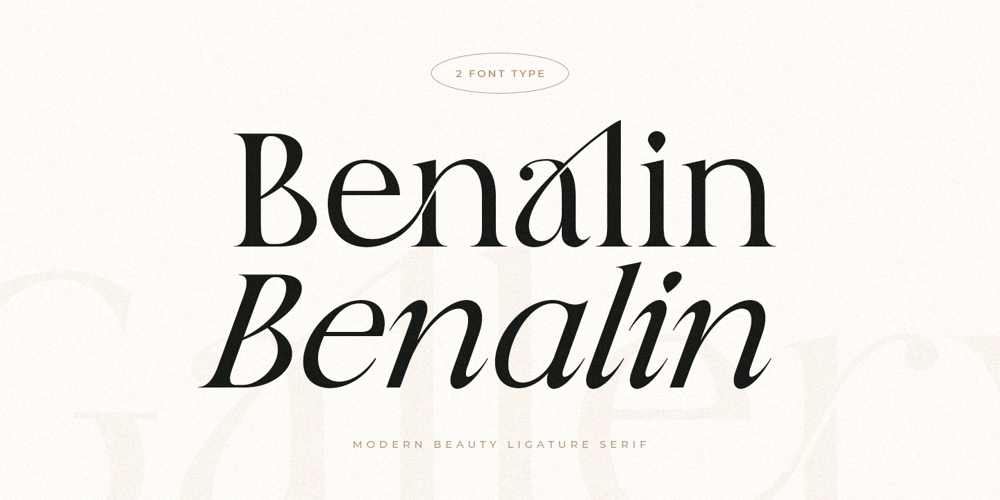
Benalin Style
Benalin Style font
Benalin Style Font Family was designed by Zamroni Hamzah and published by Sensatype Studio. Benalin Style contains 2 styles and family package options. A Modern Beauty Ligature Serif font that we created special for elegant branding needs, with extra alternates in unique shape will be ready to add value of your brand. It so nice to leverage designer or product owner that need solutions to make their design look more classy and modern. And specially for Benalin font, We prepared any alternate characters to help you create unlimited variations for your creative needs.Benalin Modern Beauty Ligature Serif font ready with: Any options to get creative variations (combination of Ligature characters) Preview as a inspirations that you can do with Benalin font Ready Regular and Italic Ready with Lowercase and Uppercase characters Wish you enjoy our font. 🙂